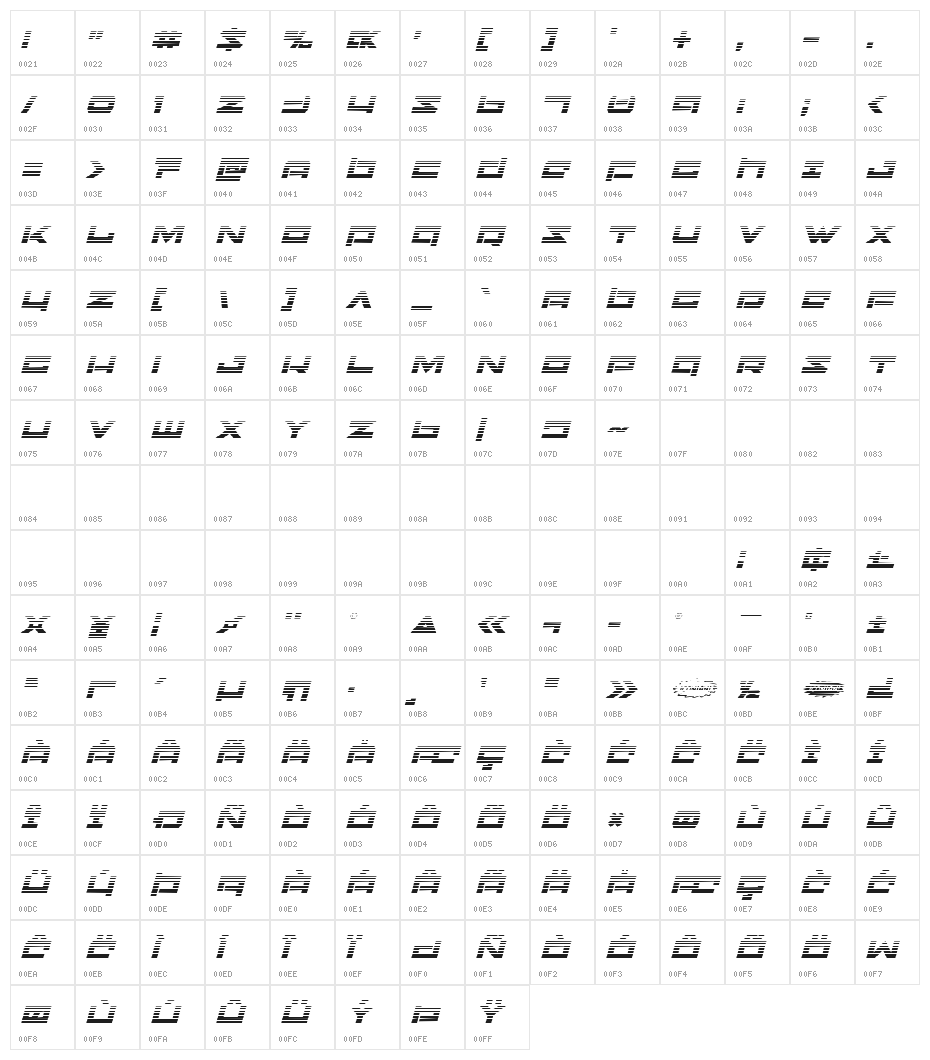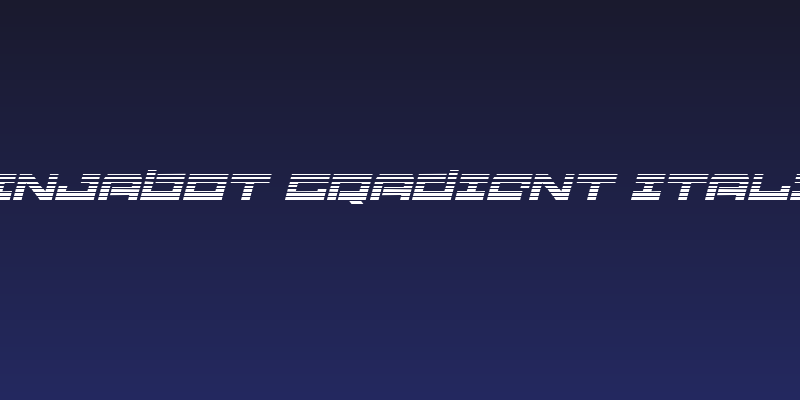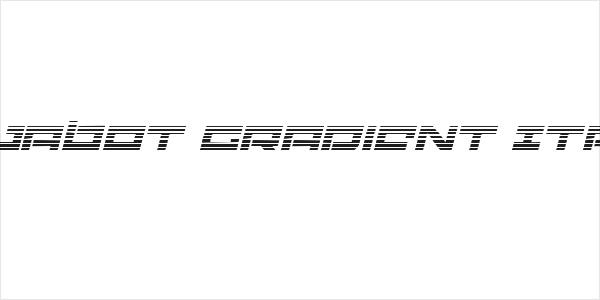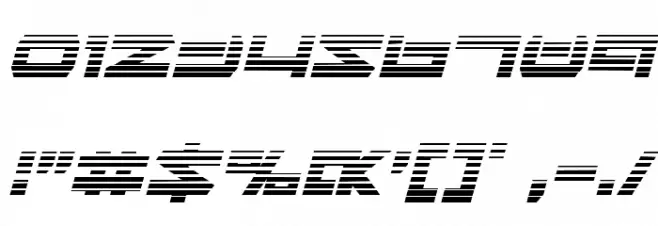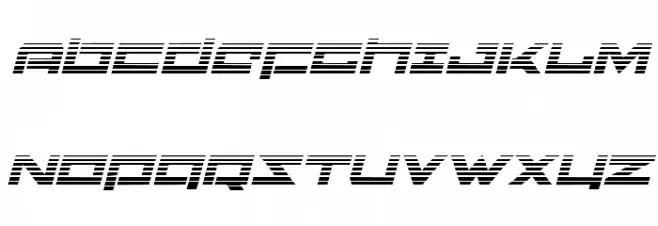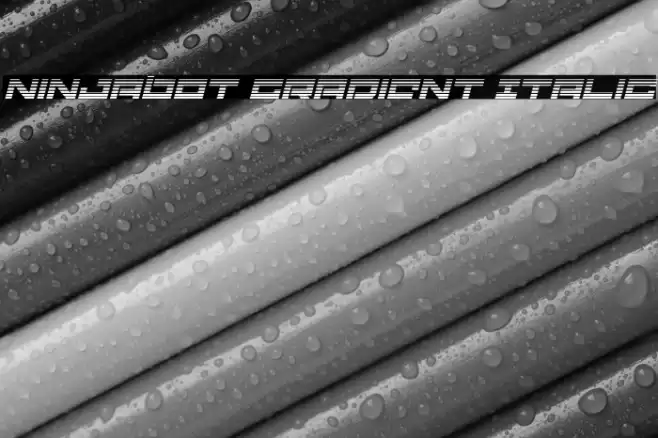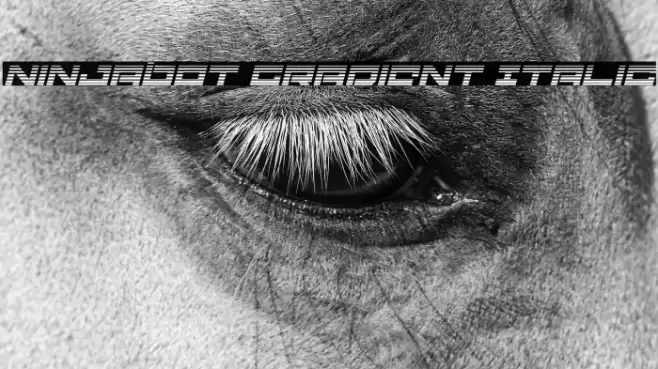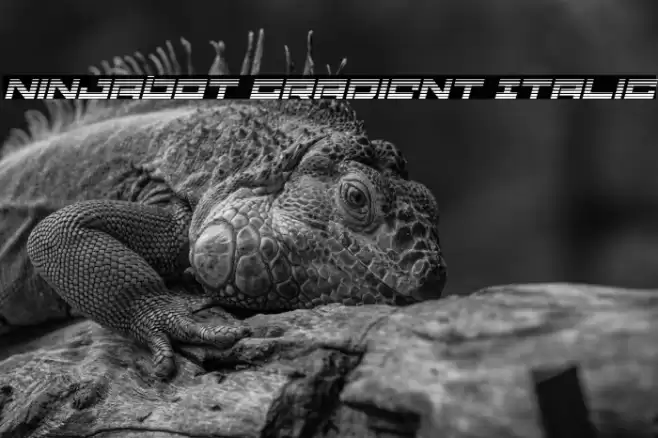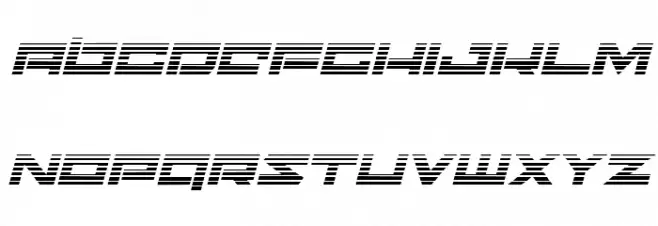
Ninjabot Gradient Italic Font
Ninjabot Gradient Italic Description
This font features a futuristic and dynamic design with a distinct italic slant, giving it a sense of motion and speed. The characters are composed of horizontal lines that create a striped effect, enhancing its modern and technological appearance. The uppercase and lowercase letters maintain a consistent style, with sharp angles and geometric shapes that contribute to its sleek aesthetic. The numerals and special characters follow the same design principles, ensuring uniformity across all glyphs. This font is ideal for projects that require a cutting-edge and innovative look.
| Proposed Projects | Ideal for tech-themed branding, video game titles, sci-fi posters, and modern digital interfaces. |